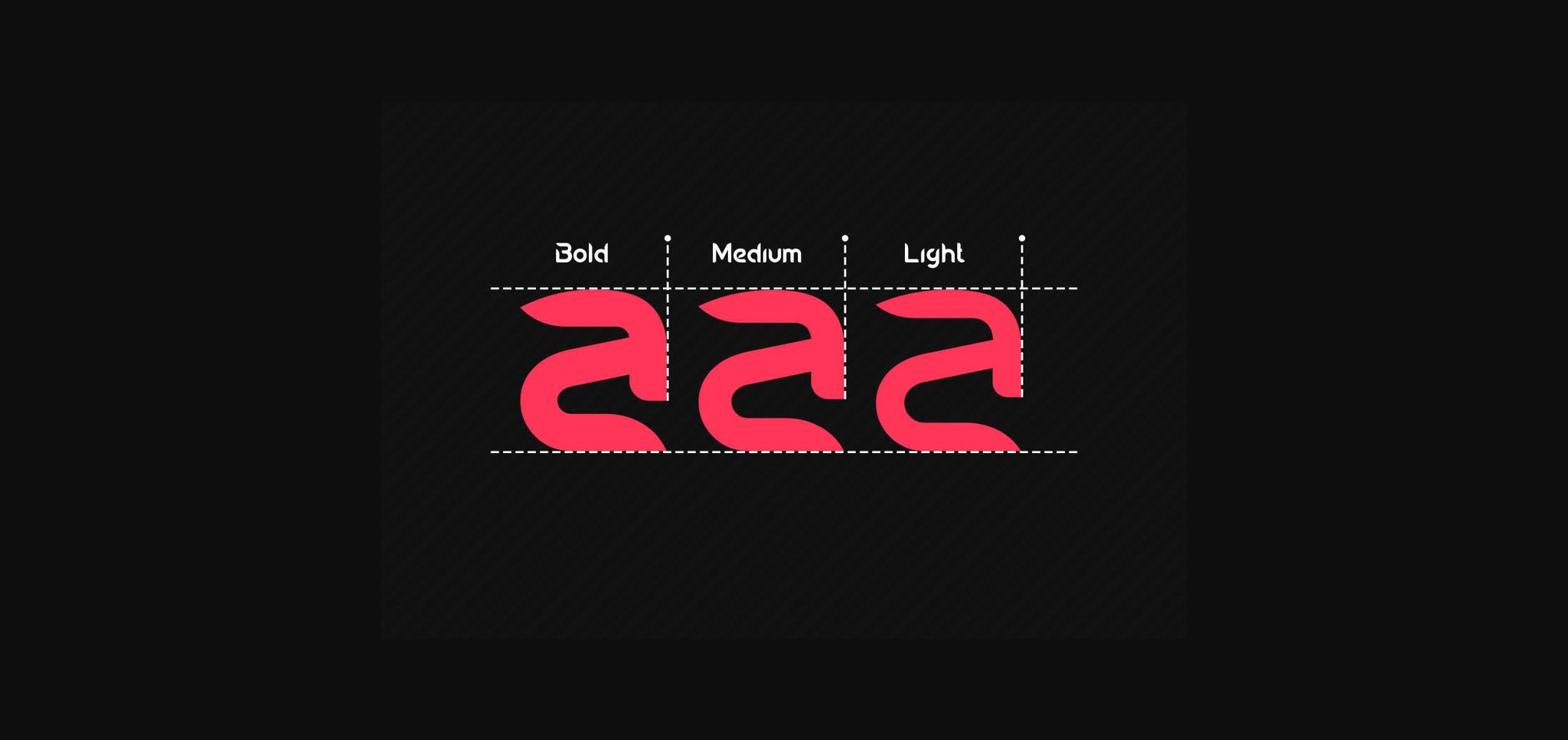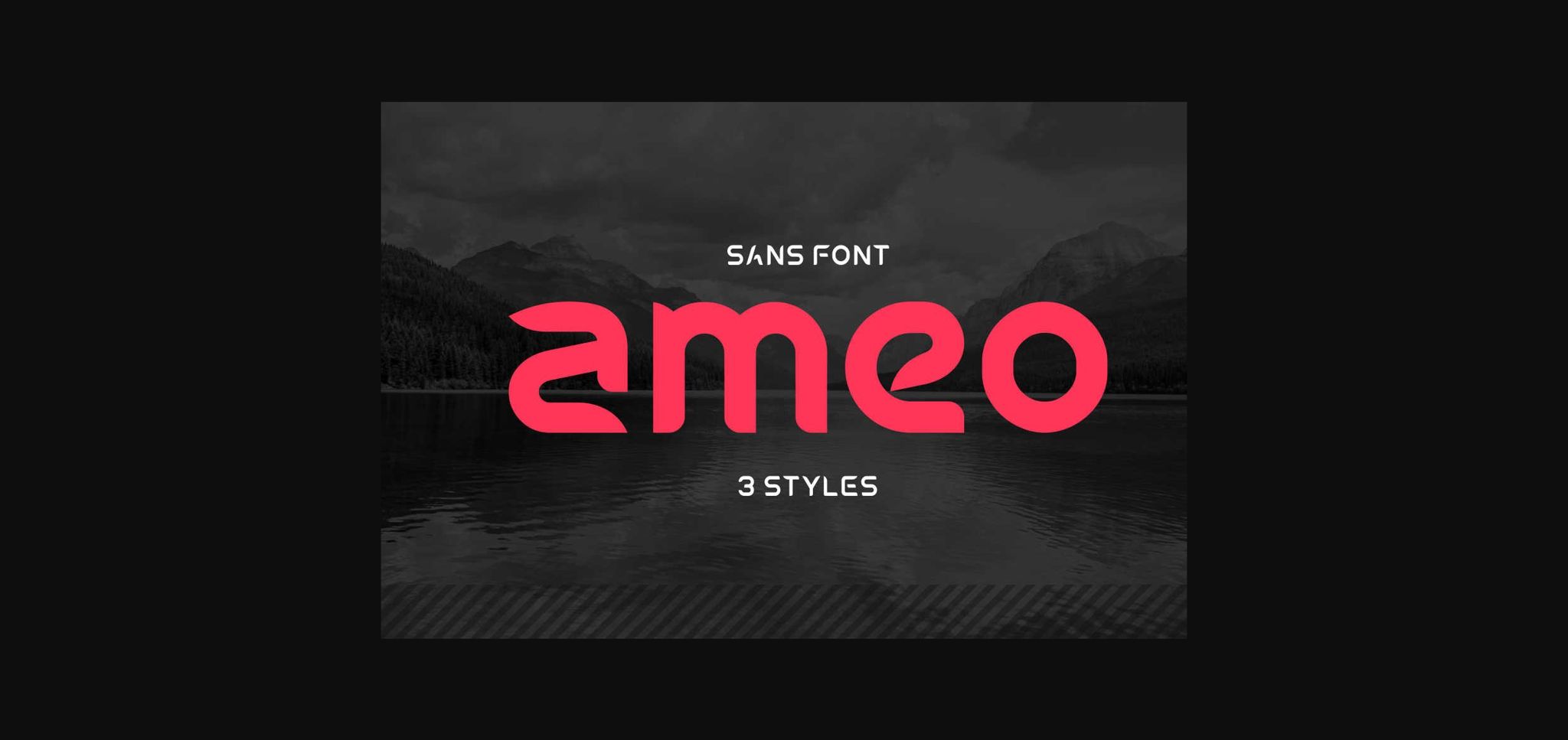
About Ameo Font
Ameo is a modern sans-serif font with flowing lines and sharp edges. Add it confidently to your projects and you will love the results!